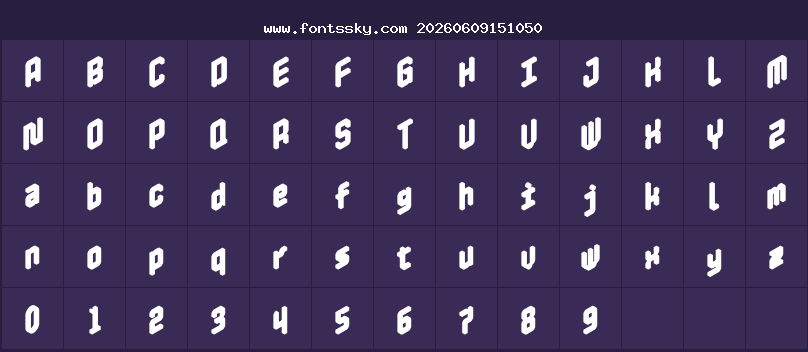
• Font Name: Nabla
• Full Font Name: Nabla Regular
• Designer: Arthur Reinders Folmer
• Manufacturer: Typearture
About Nabla.ttf
Nabla.ttf is a modern, elegant sans-serif font designed for ultimate readability and visual harmony. Perfect for branding, headlines, web design, and print materials.